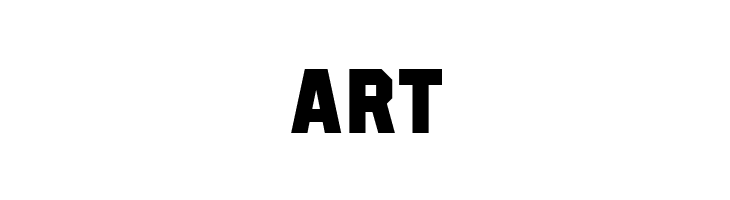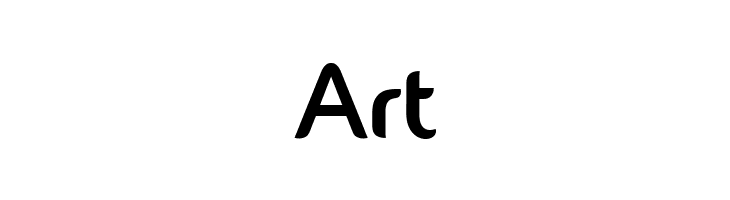
• DIAMOND DUST
A bold, angular font with a Gothic-inspired, geometric style.
• Safe Iodine
A playful, bold font with a 3D effect and halftone shading, perfect for fun projects.
• FunnyFigs
• Stardust
A dynamic and flowing script font with elegant, cursive letterforms.
• Millionaire DEMO
A bold, geometric font with a strong, industrial feel.
• Sketch
A bold, brush-style script font with dynamic, textured strokes.
• Fontastique Fontastique
A modern, playful font with smooth curves and rounded edges.
• TV Patrol Gothic
• America and Stars
A bold, elegant cursive font with flowing, ornate characters.
• Time To Scribble
A bold, scribble-textured font with a hand-drawn, artistic style.